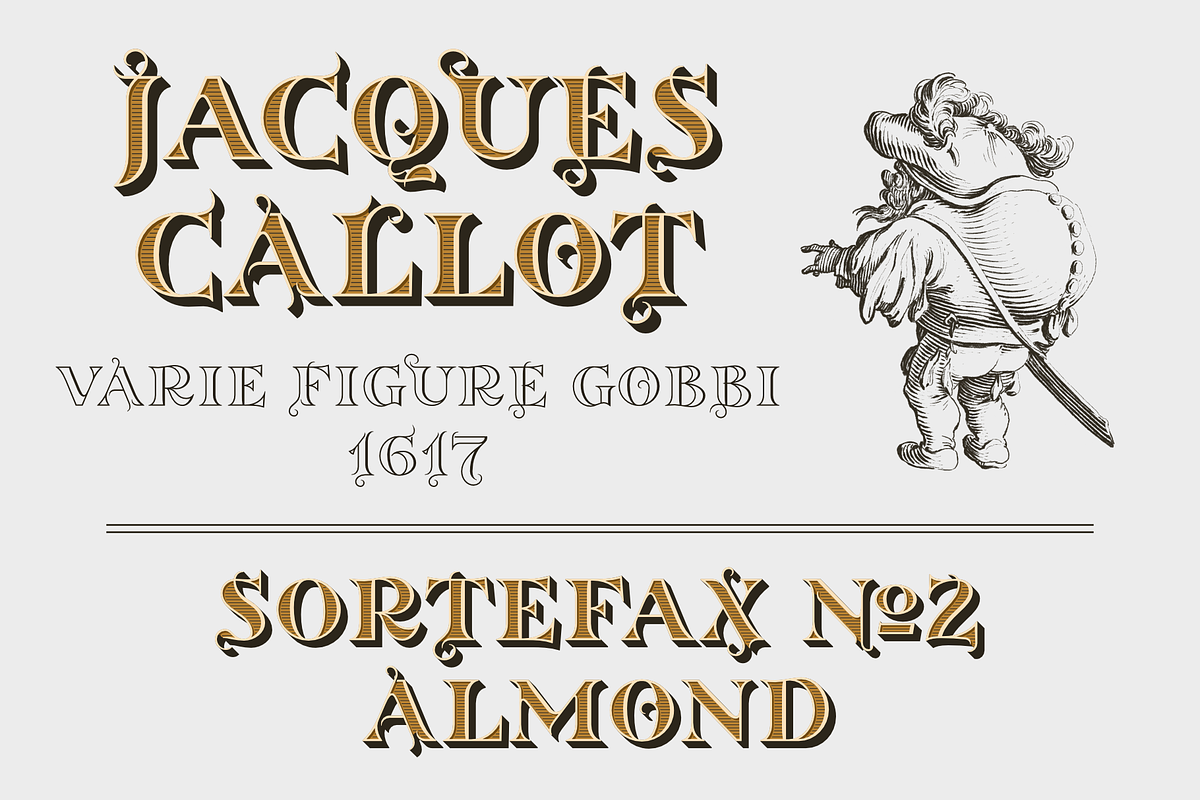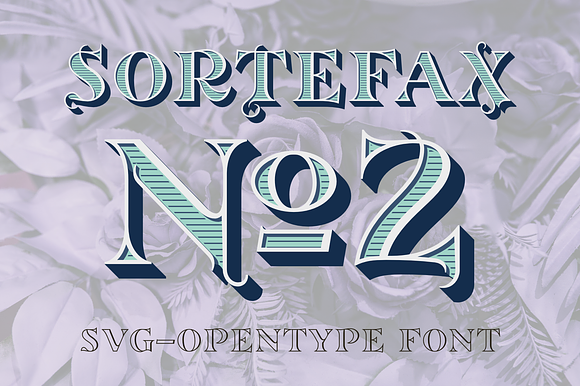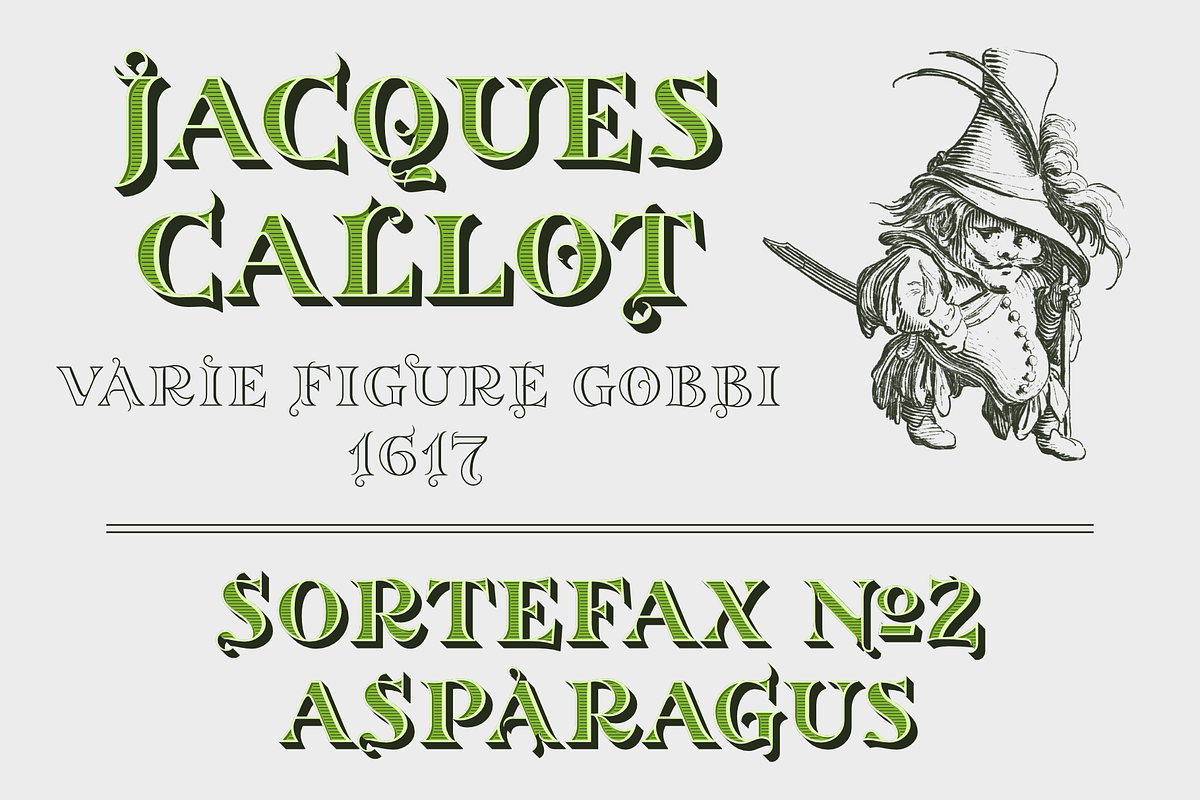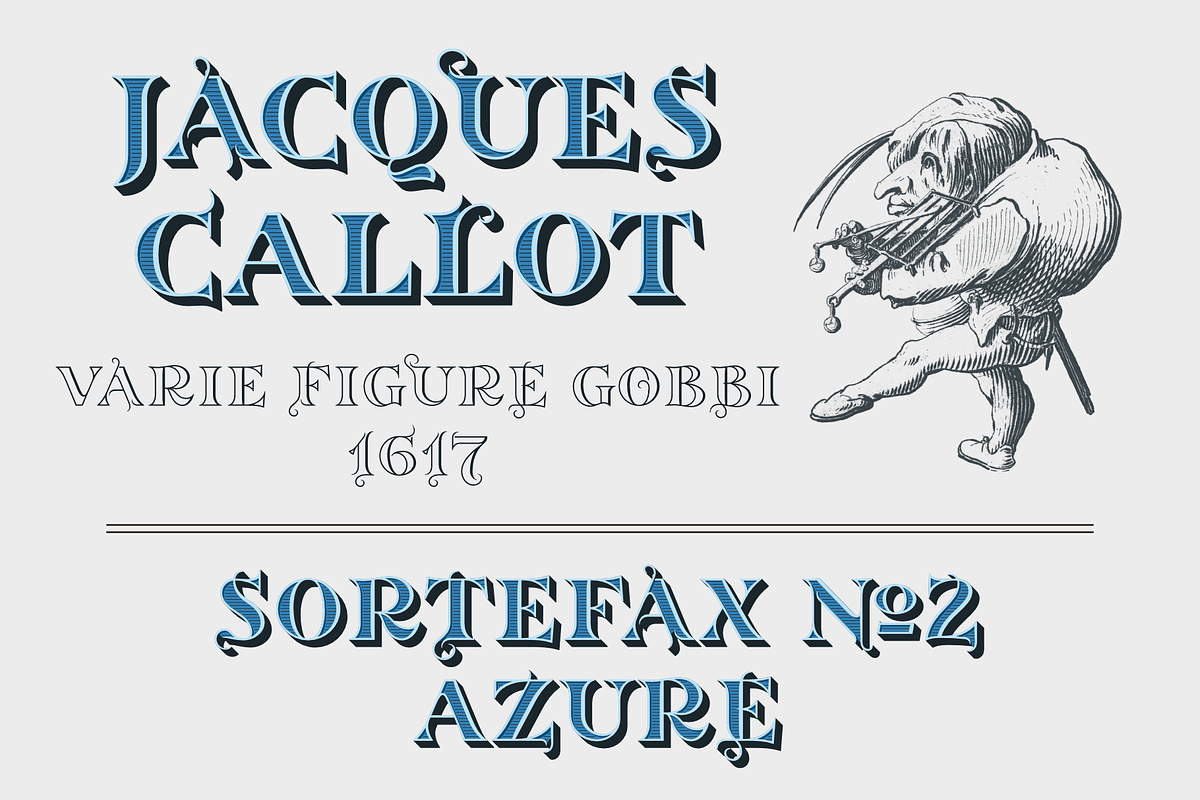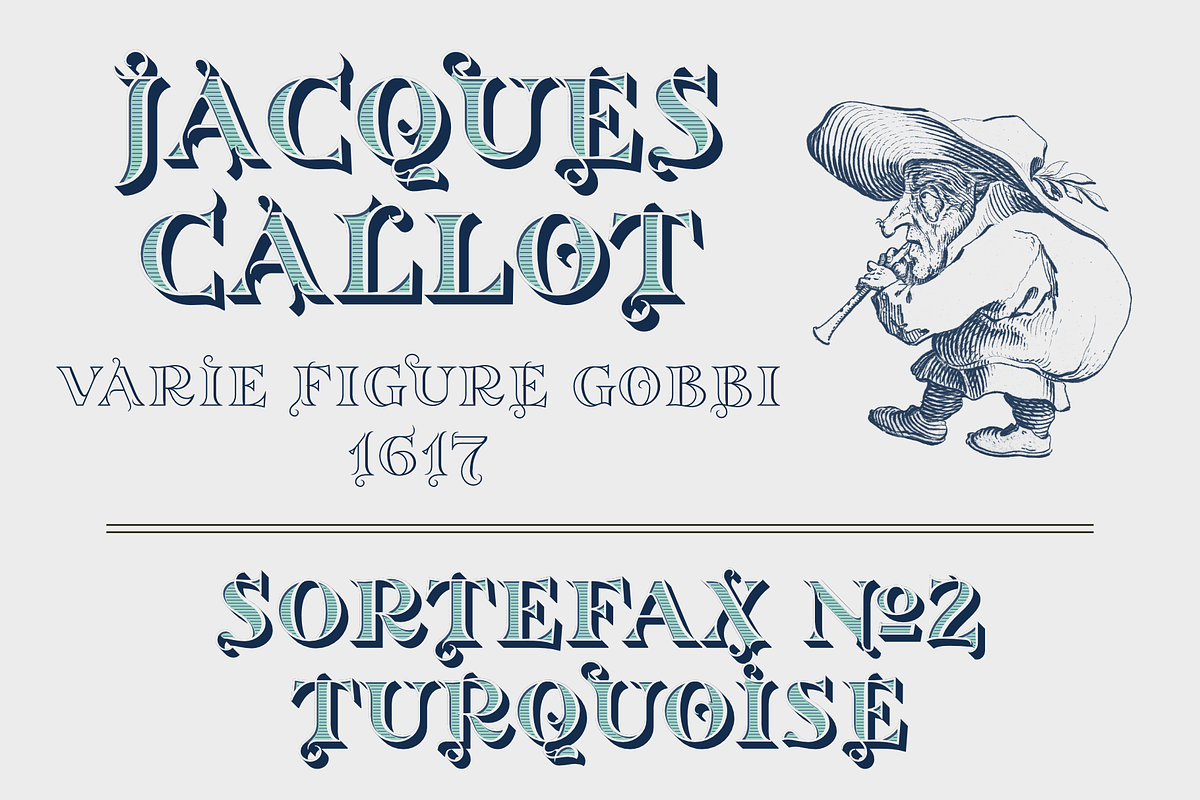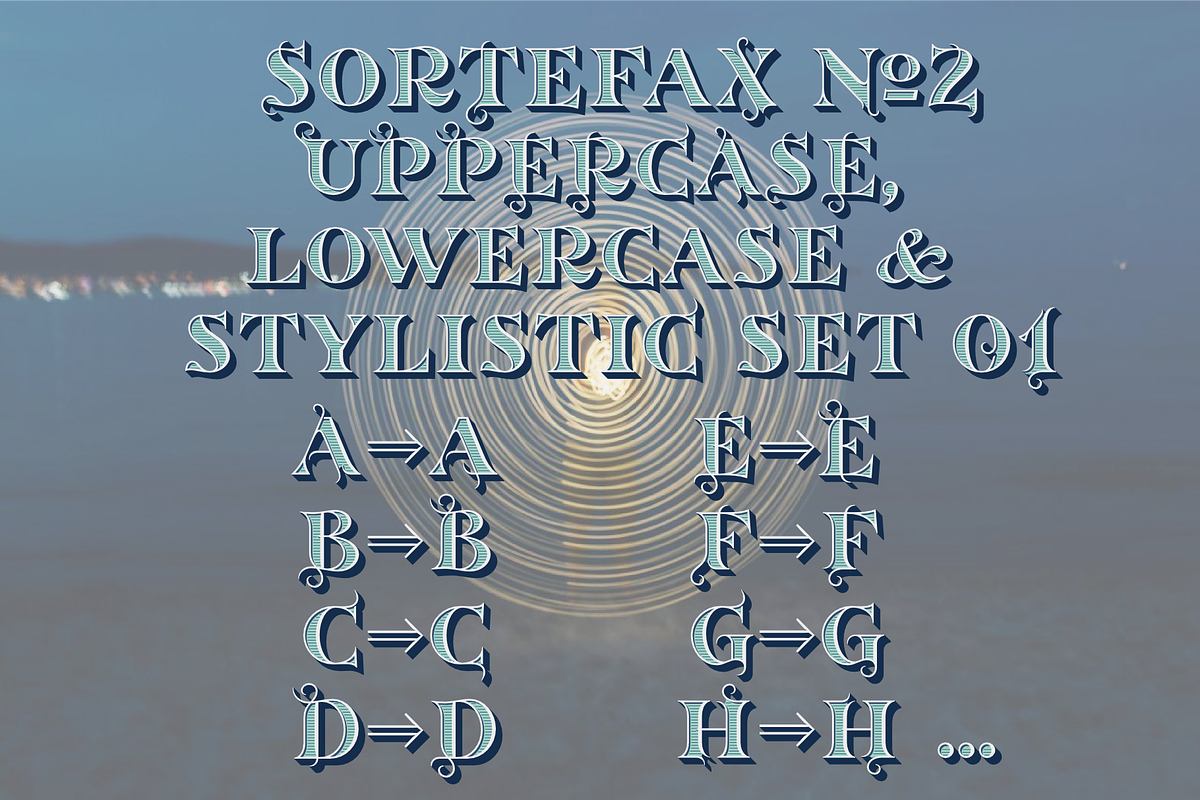
Sortefax No2 - SVG color font
SVG-OpenType color fonts Sortefax №2: Almond, Azure, Asparagus and Turquoise with:
stylistic Set 01 (decorative variants)
TIP: Play with UPPeRCaSe and lowercAsE and have fun!!